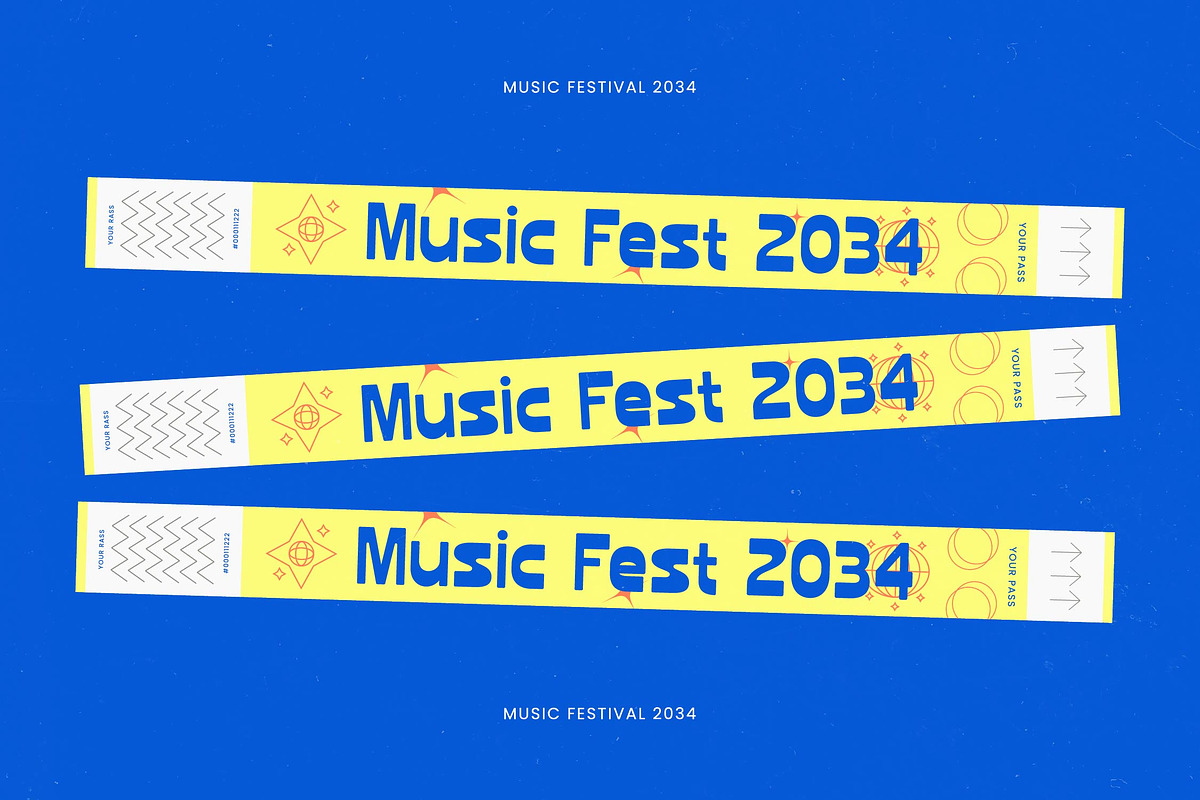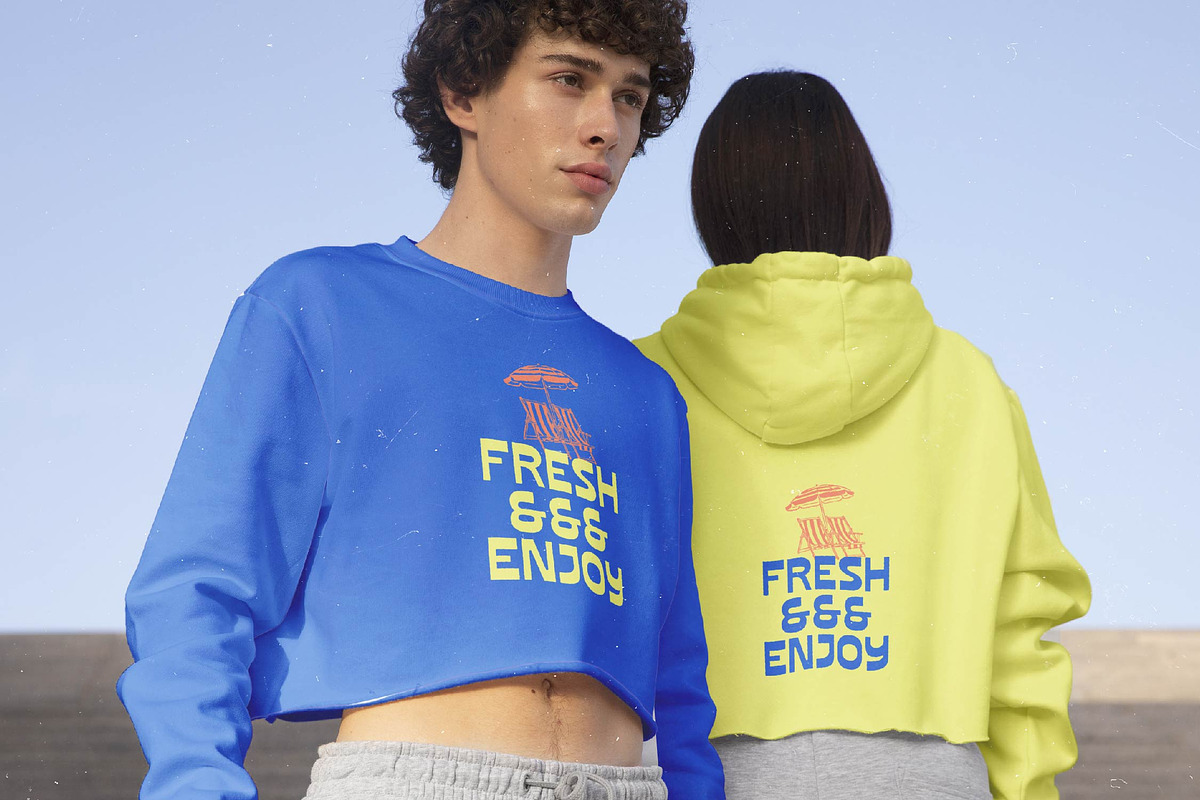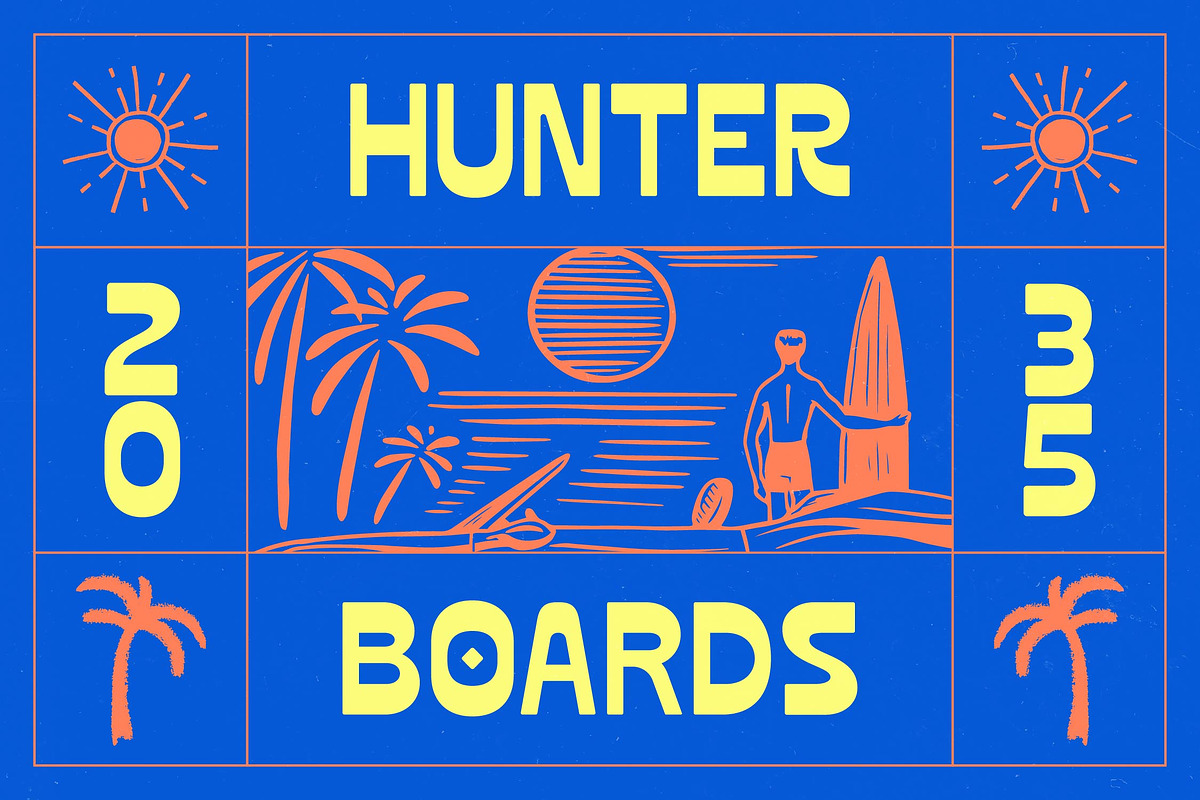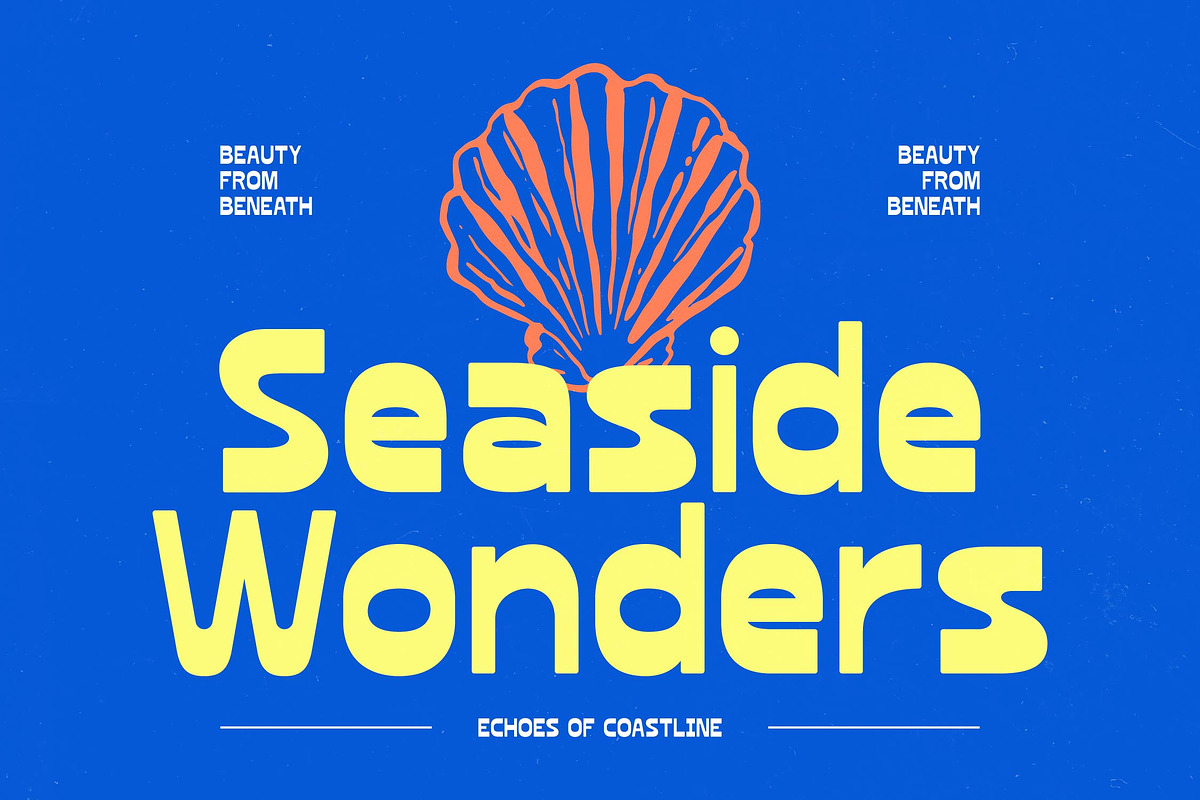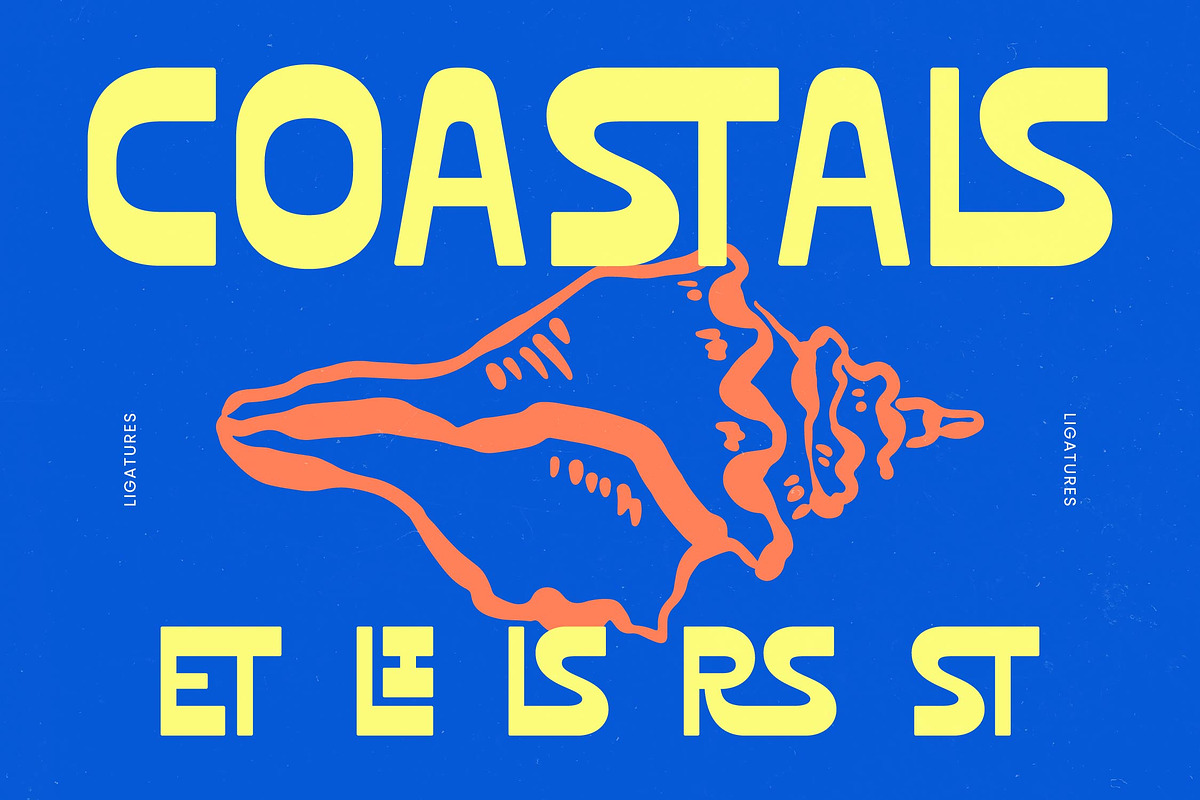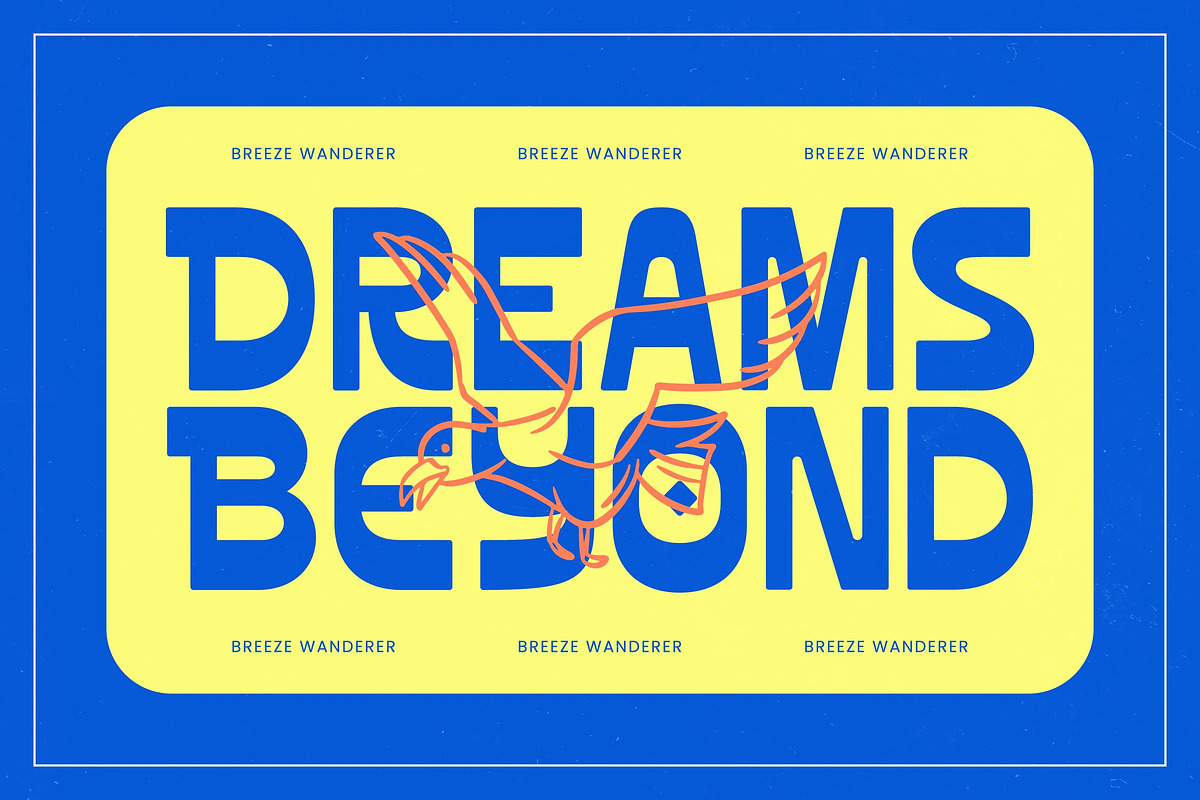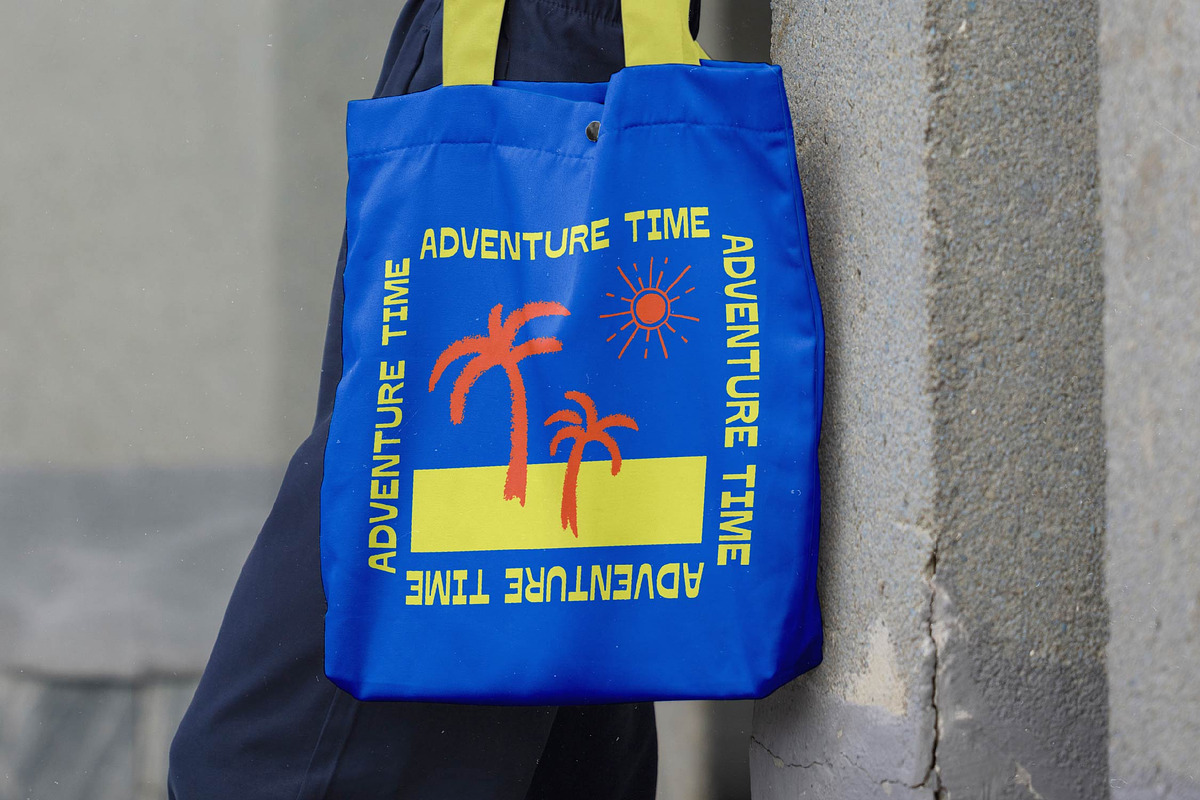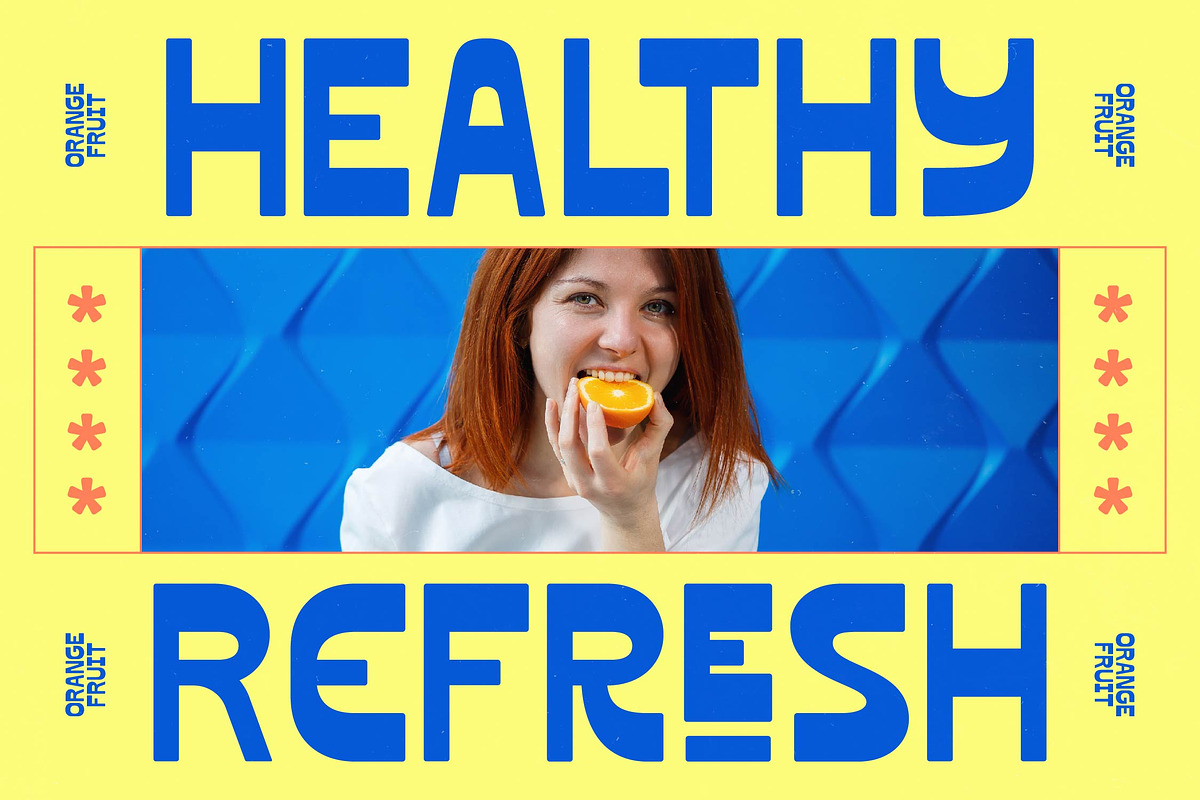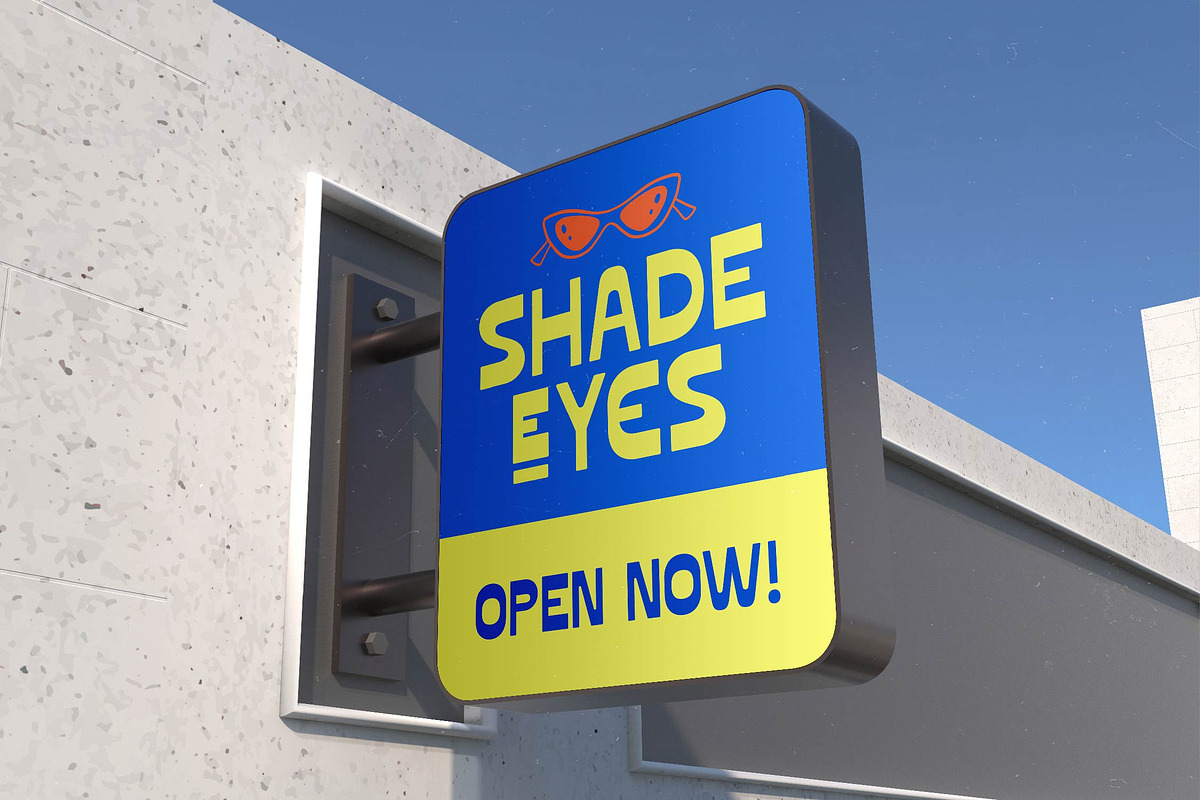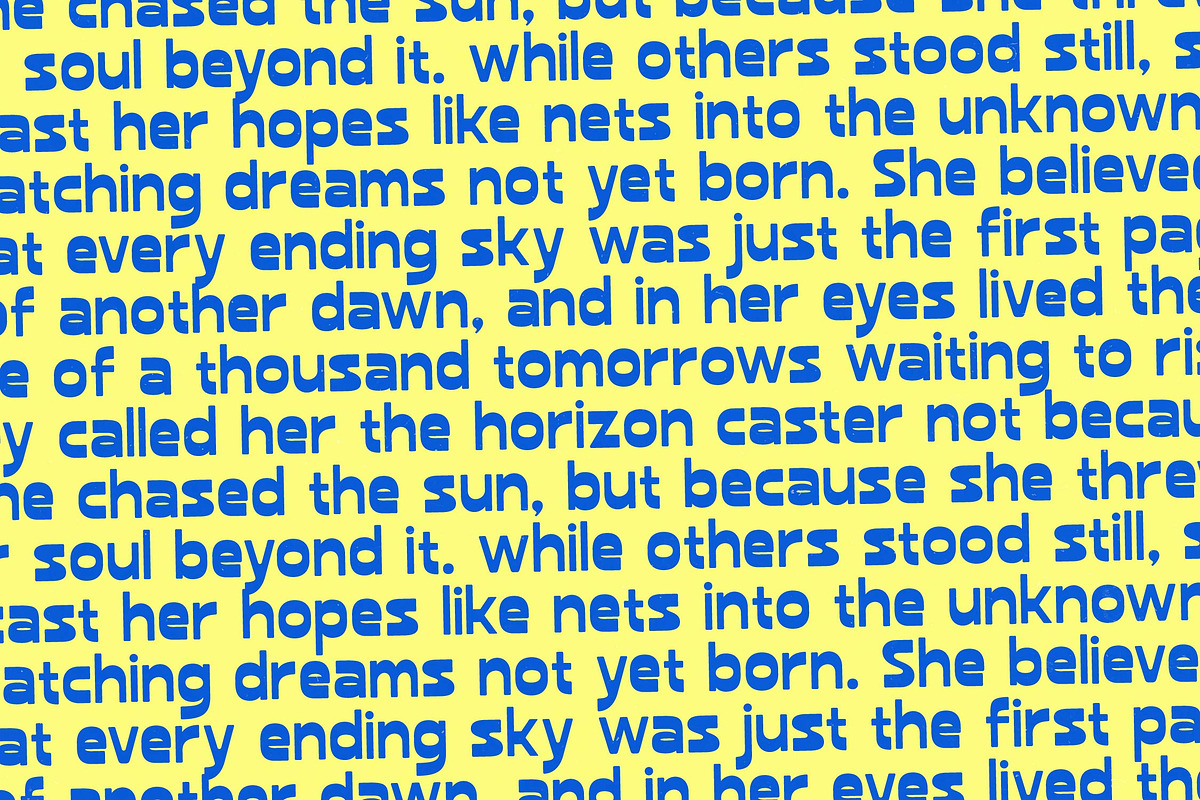
Horizon Caster Bold Display Font
Experience the raw energy of the coast with Horizon Caster, a typeface designed to make a fearless statement. This bold freestyle display font captures the essence of summer adventures and high-impact visual storytelling through its heavy, rhythmic letterforms.
Inspired by the rhythmic power of ocean waves and vintage surf culture posters, this font bridges the gap between retro nostalgia and contemporary brutalist aesthetics. Its heavy weights and unique geometric quirks reflect a life lived on the edge of the horizon, perfect for designs that need to breathe with movement.
Built for designers who demand attention, the personality of this typeface is rooted in modern serif display sensibilities with a luxury typography edge that doesn't sacrifice grit. It delivers a high-contrast serif feel in a robust body, making it a premier editorial font for projects requiring maximum branding impact.
Tapping into the current modern serif trend of expressive, high-personality typefaces, this font elevates the raw freestyle look to professional standards. It fits perfectly within the current wave of editorial display fonts that prioritize character-driven typography over sterile perfection, ideal for today's expressive design landscape.
Whether you are crafting a standout logo design or building a comprehensive branding identity, this font excels across digital and print mediums. It is the perfect choice for high-impact editorial layouts, bold packaging concepts, and even unconventional wedding stationery or high-end fashion lookbooks.
This comprehensive package includes over 362 glyphs to give you total creative control over every layout. Unlock unique looks using the ligatures and alternates included, while ensuring global reach with full multilingual support, various swashes, and a wide array of international characters.
- Ligature 05 Alternate 25